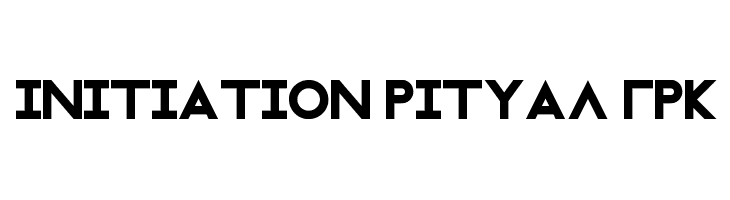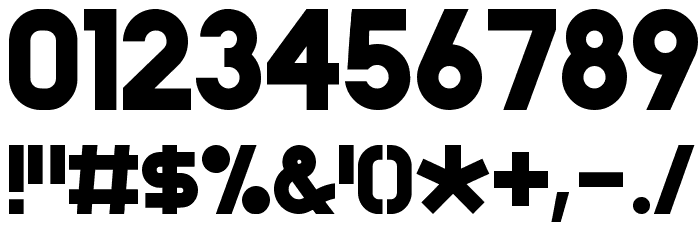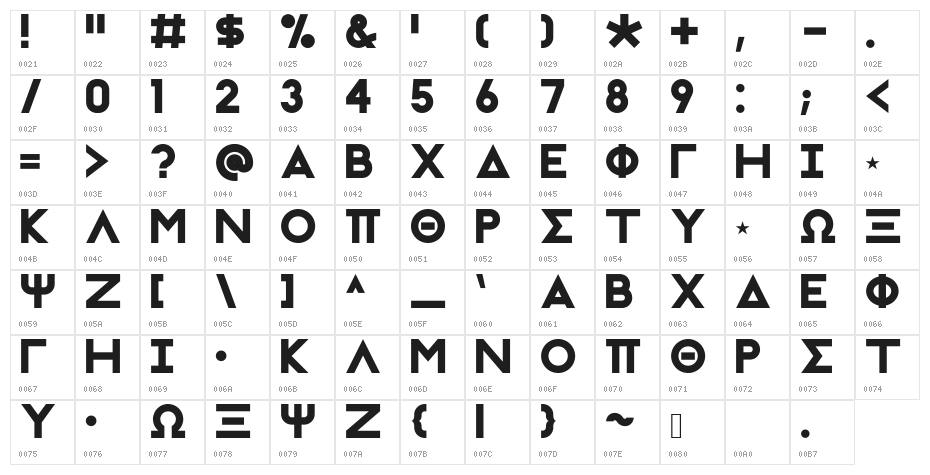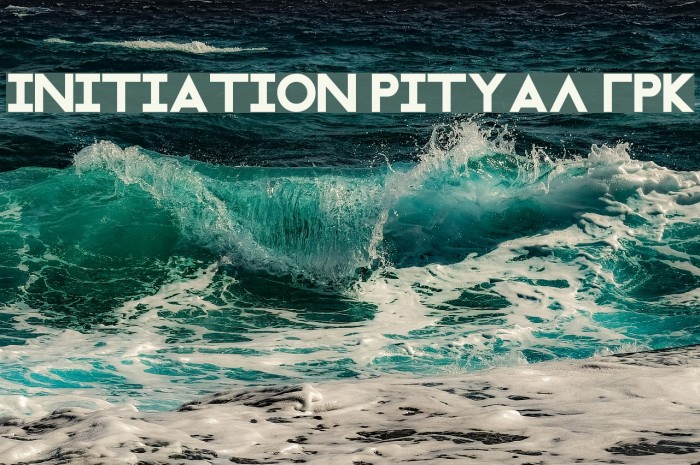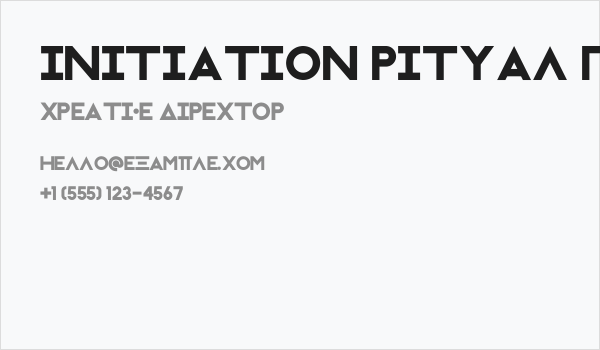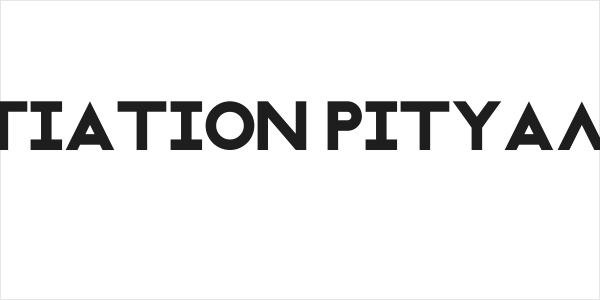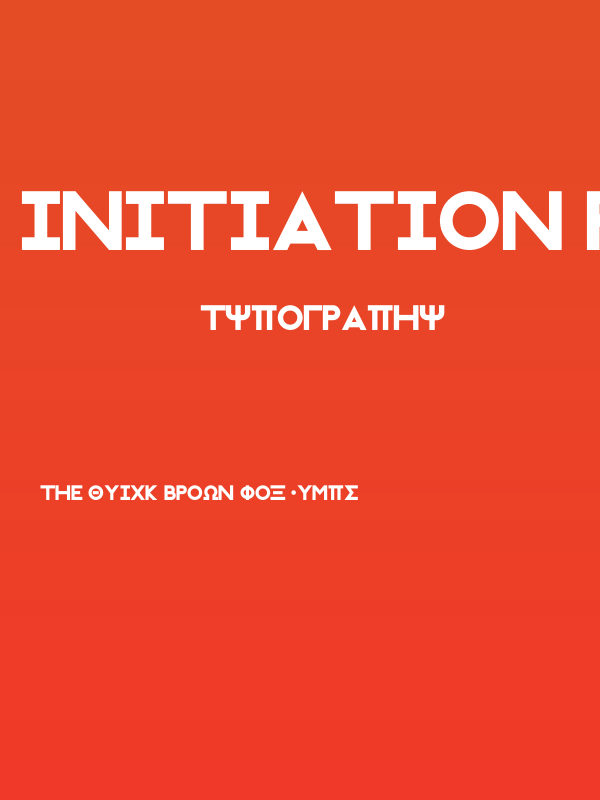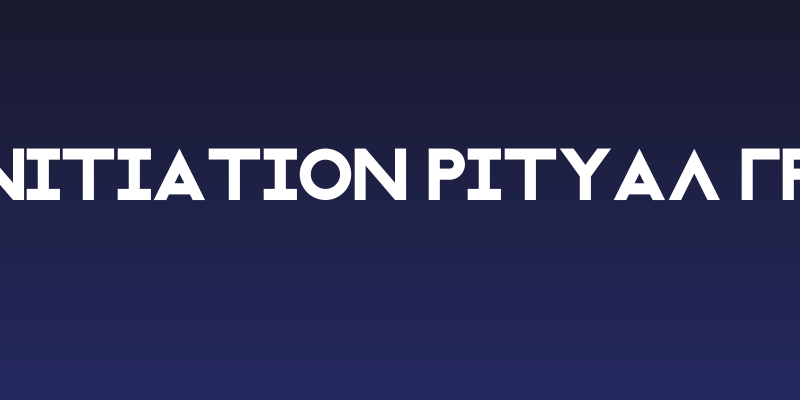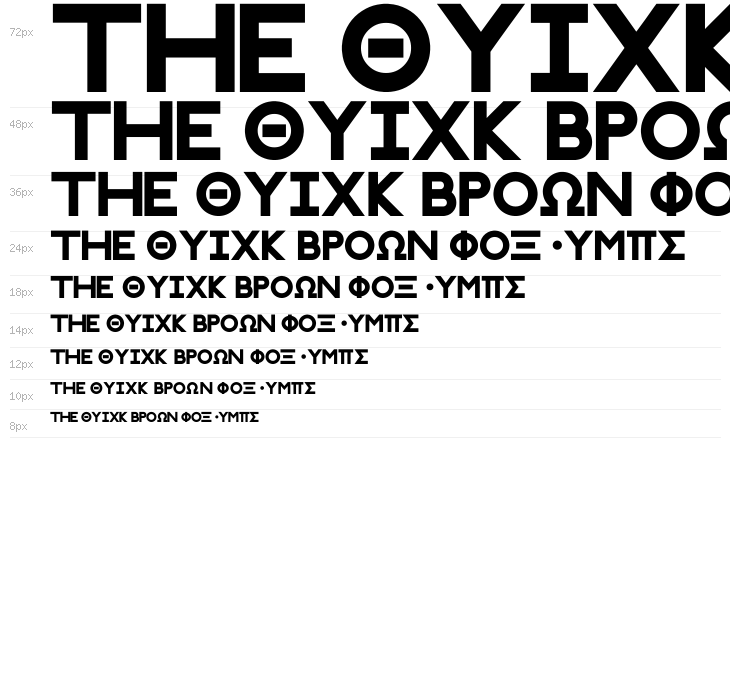
Initiation Ritual GRK Font
Initiation Ritual GRK Description
This font features a bold and geometric design, characterized by its strong lines and angular shapes. The uppercase letters are crafted with a modern and futuristic aesthetic, incorporating elements of Greek letterforms. The numbers and special characters maintain the same boldness, ensuring consistency across all glyphs. The font's design is striking and impactful, making it suitable for attention-grabbing headlines and displays. Its unique style is both contemporary and reminiscent of ancient scripts, offering a blend of tradition and modernity.
| Proposed Projects | Ideal for branding, posters, and any project requiring a bold, modern aesthetic with a touch of historical influence. |